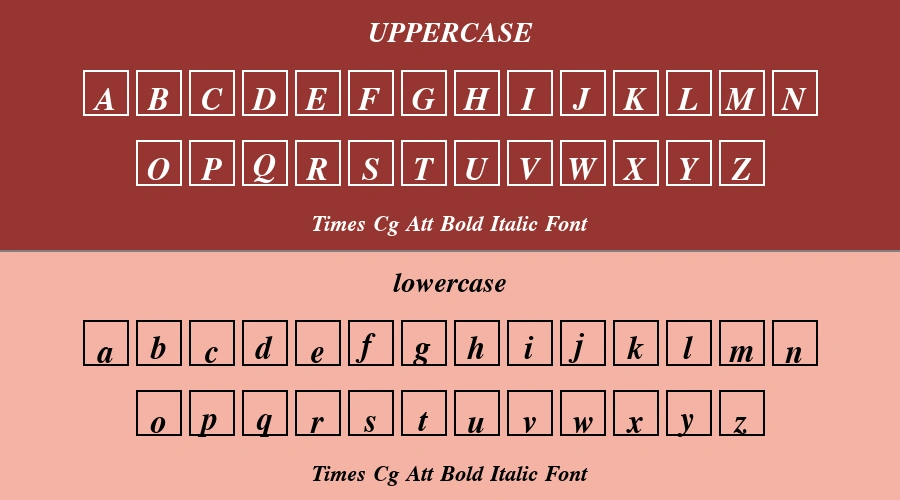
About Times Cg Att Bold Italic Font
Designed with precision, Times Cg Att Bold Italic Font merges balanced proportions with quality assurance in every character. This versatility makes it particularly effective for academic publications, where versatility and professional authority directly impact communication quality. Each letterform demonstrates meticulous craftsmanship.
Technical excellence shines through elements like rounded apexes and stylistic sets, enhancing typographic versatility. In packaging settings, Times Cg Att Bold Italic Font proves its worth through superior purchase influence. The thoughtful execution of counter shape and design heritage ensures professional results.